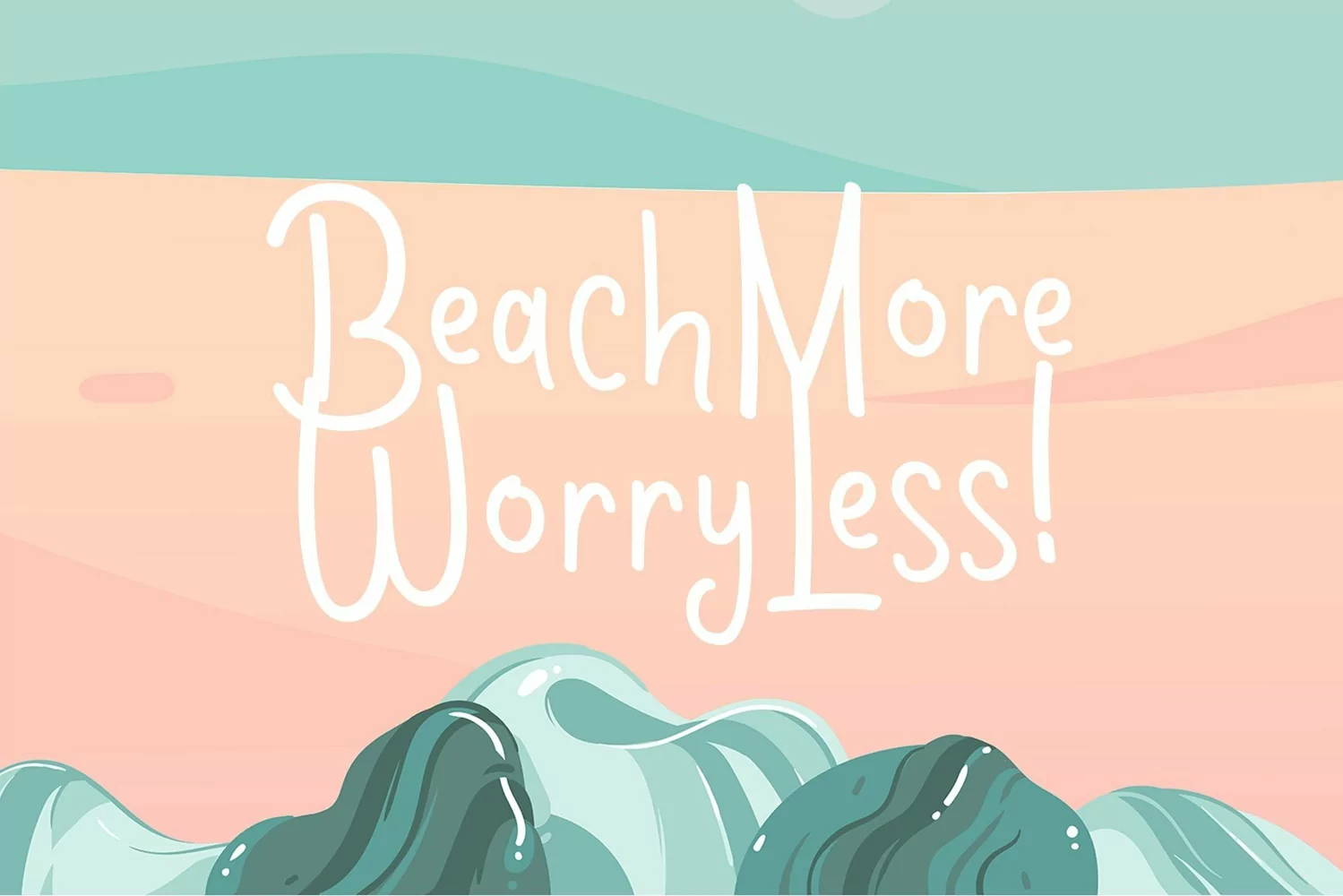
Horneus is a display typeface. Perfect for display, quotes, poster, logo, logotype, branding, crafting needs, event needs, wedding needs, packaging, merchandise, header, tittle, business card and many more.